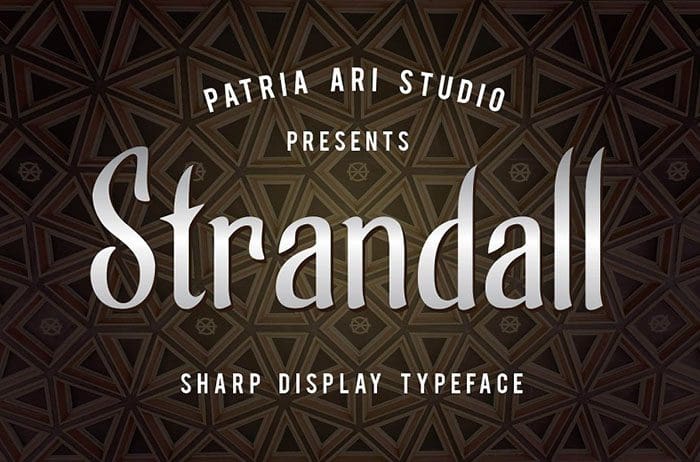
Strandall Display Font
Strandall is sharp Display Font inspired from warrior themes to support your project. It is perfect for projects such as logos & branding, headlines, posters, signage, special events or anything. Thanks to Patria Ari Typestudio for sharing this font! Take a look at this portfolio for more of his stunning fonts.